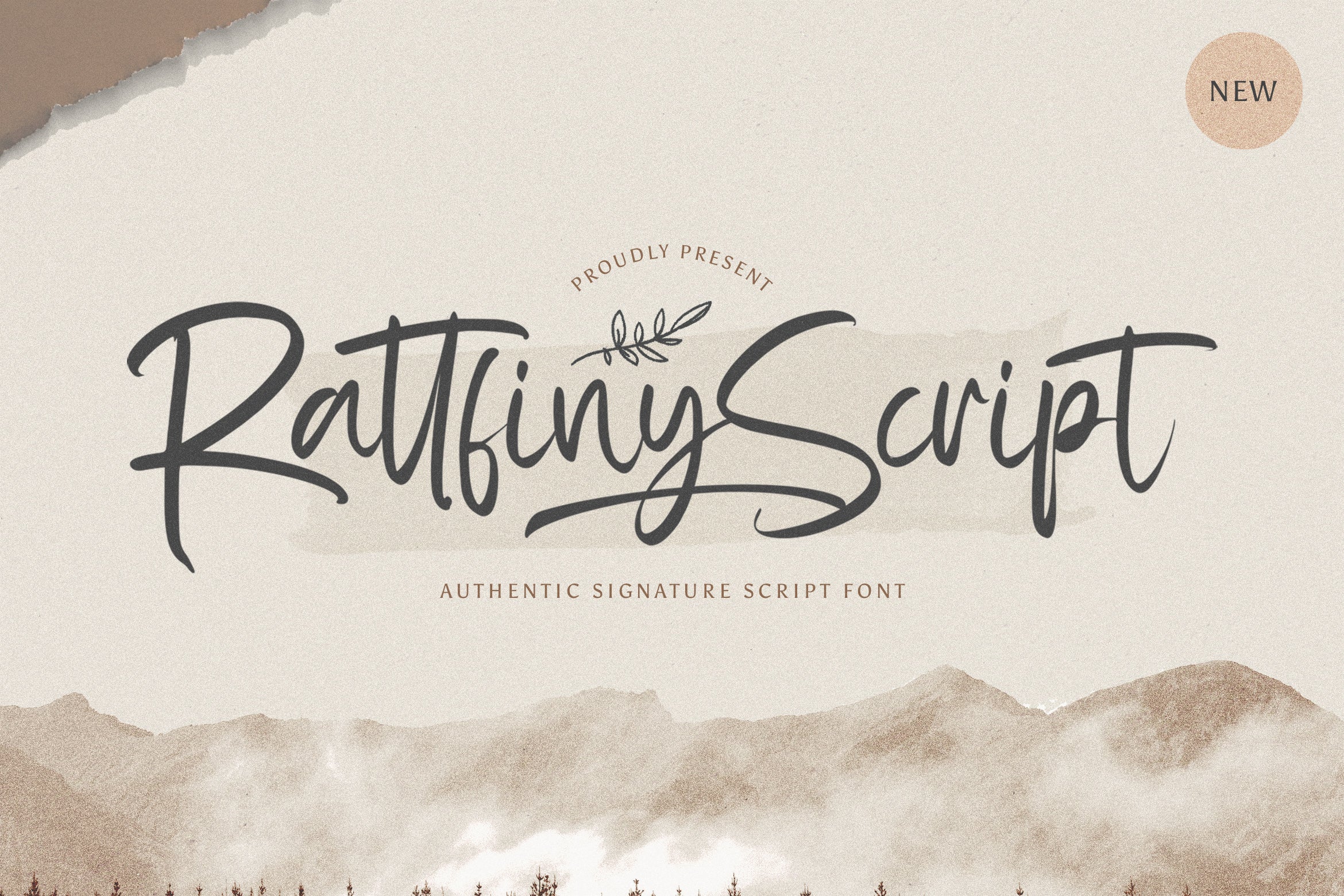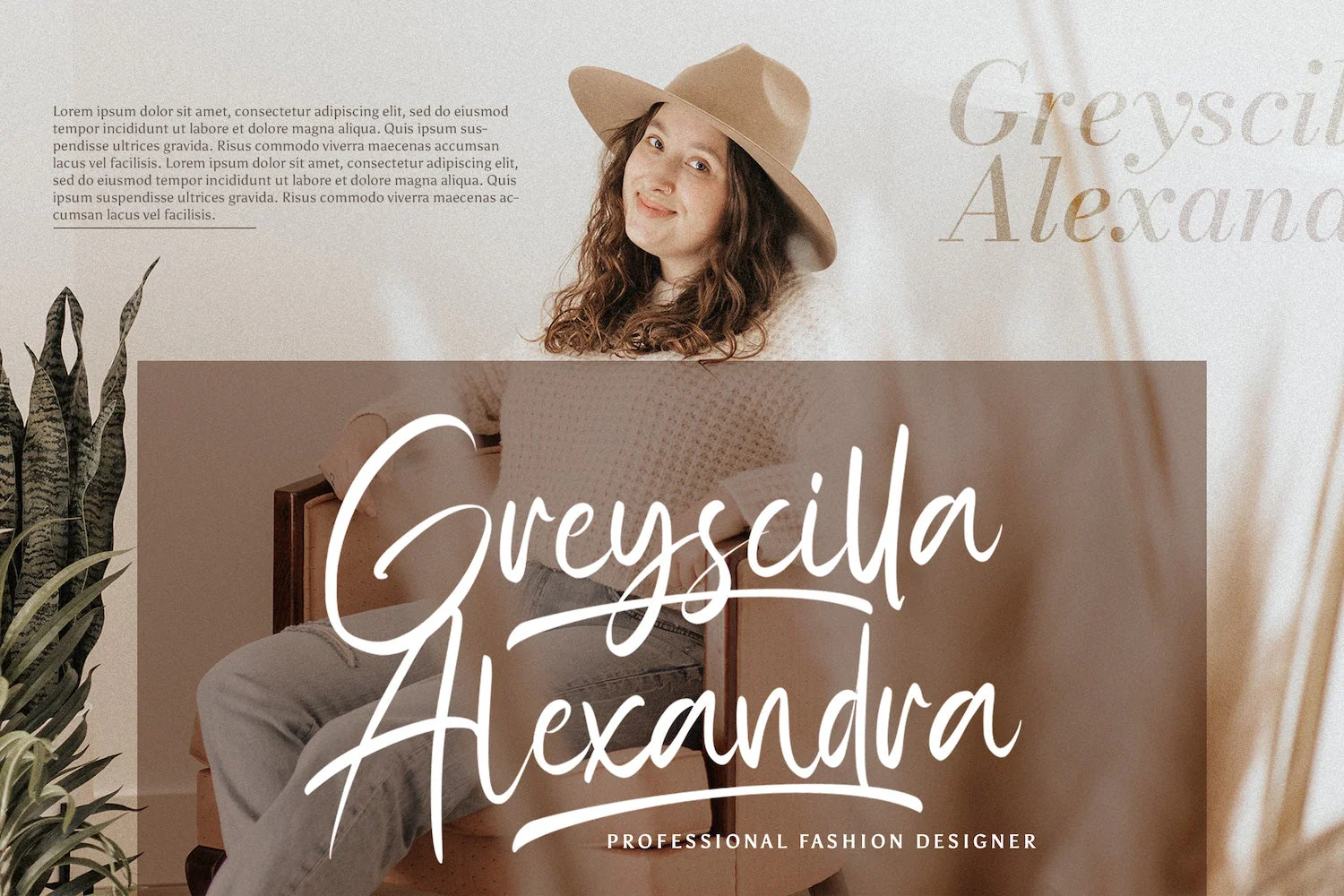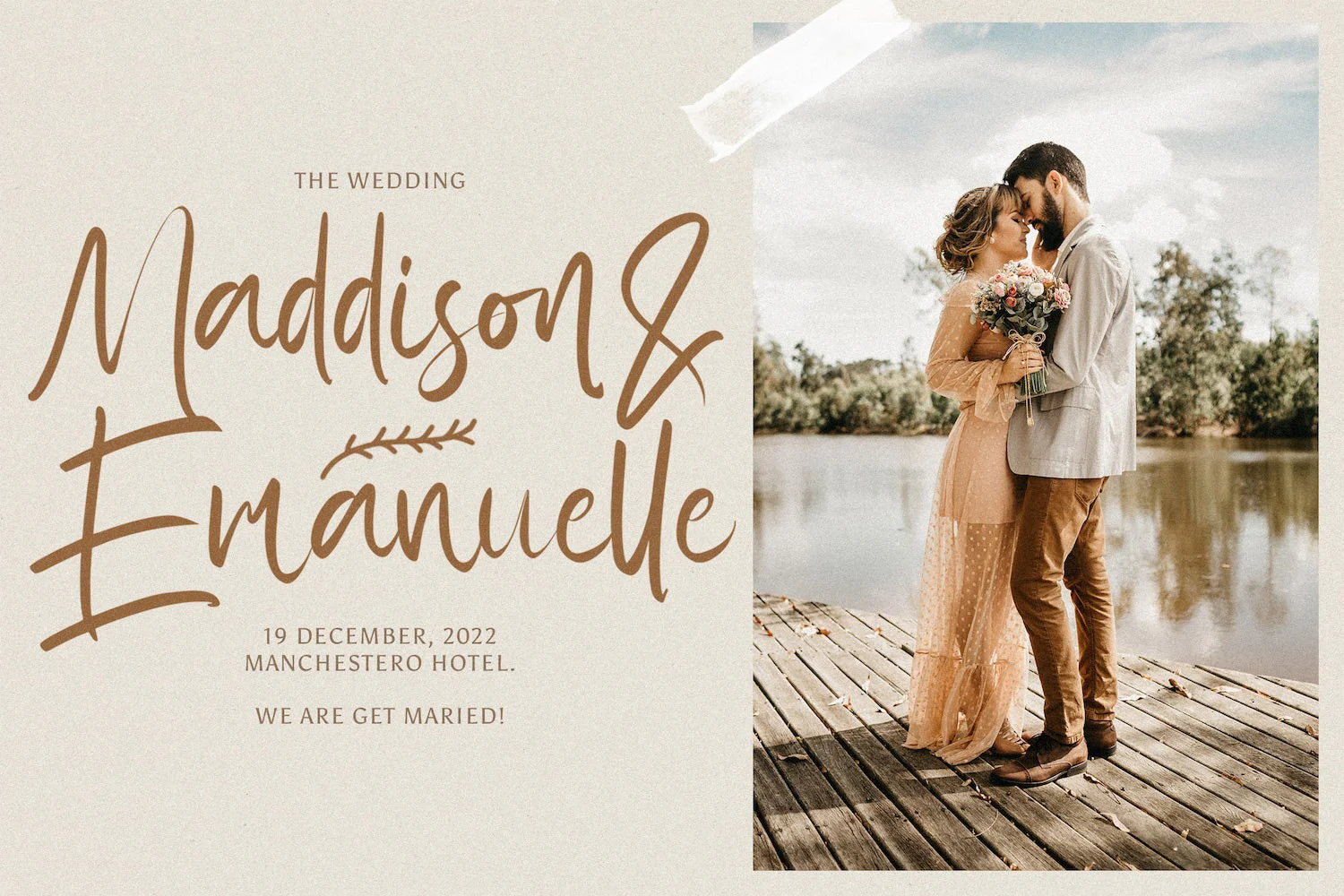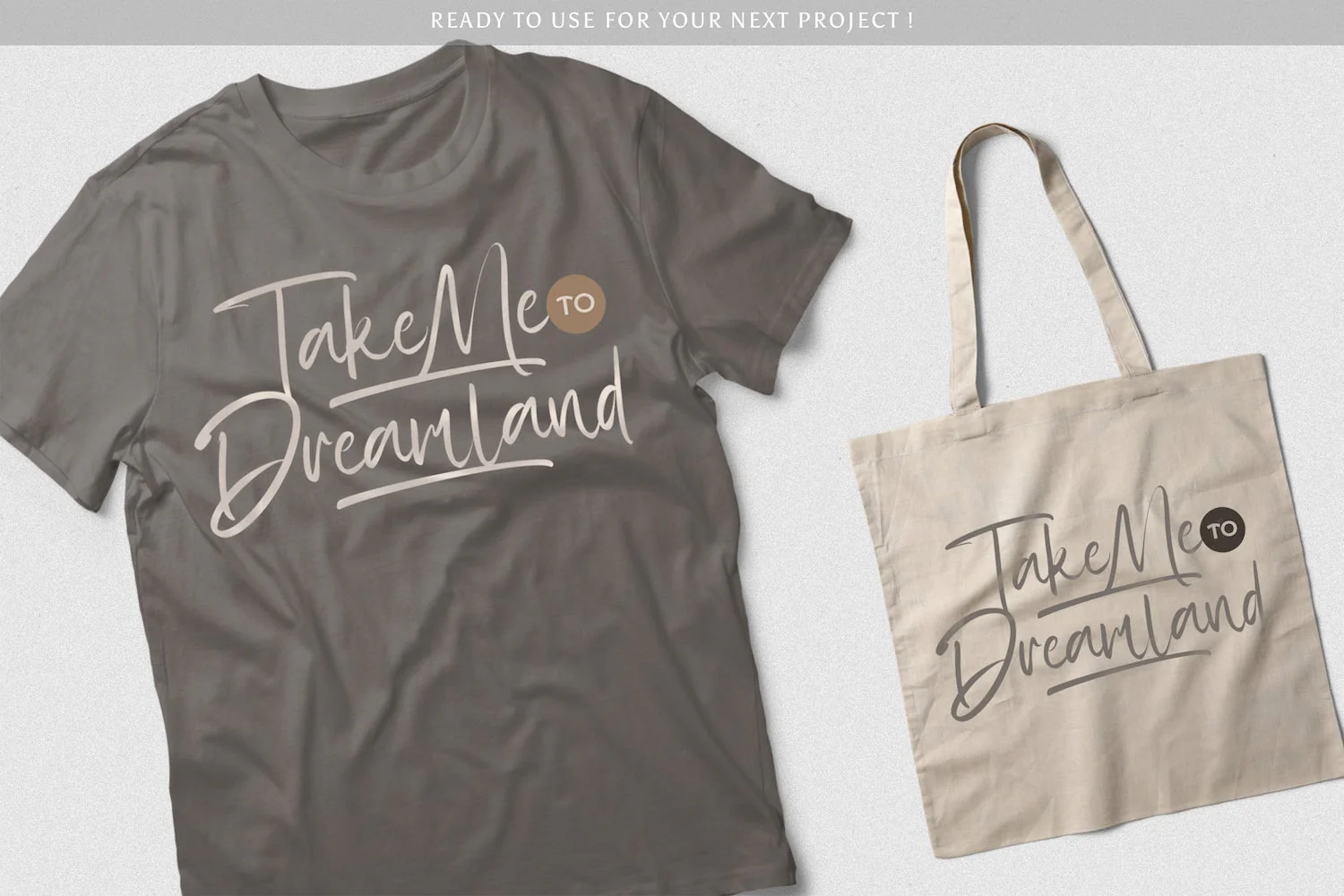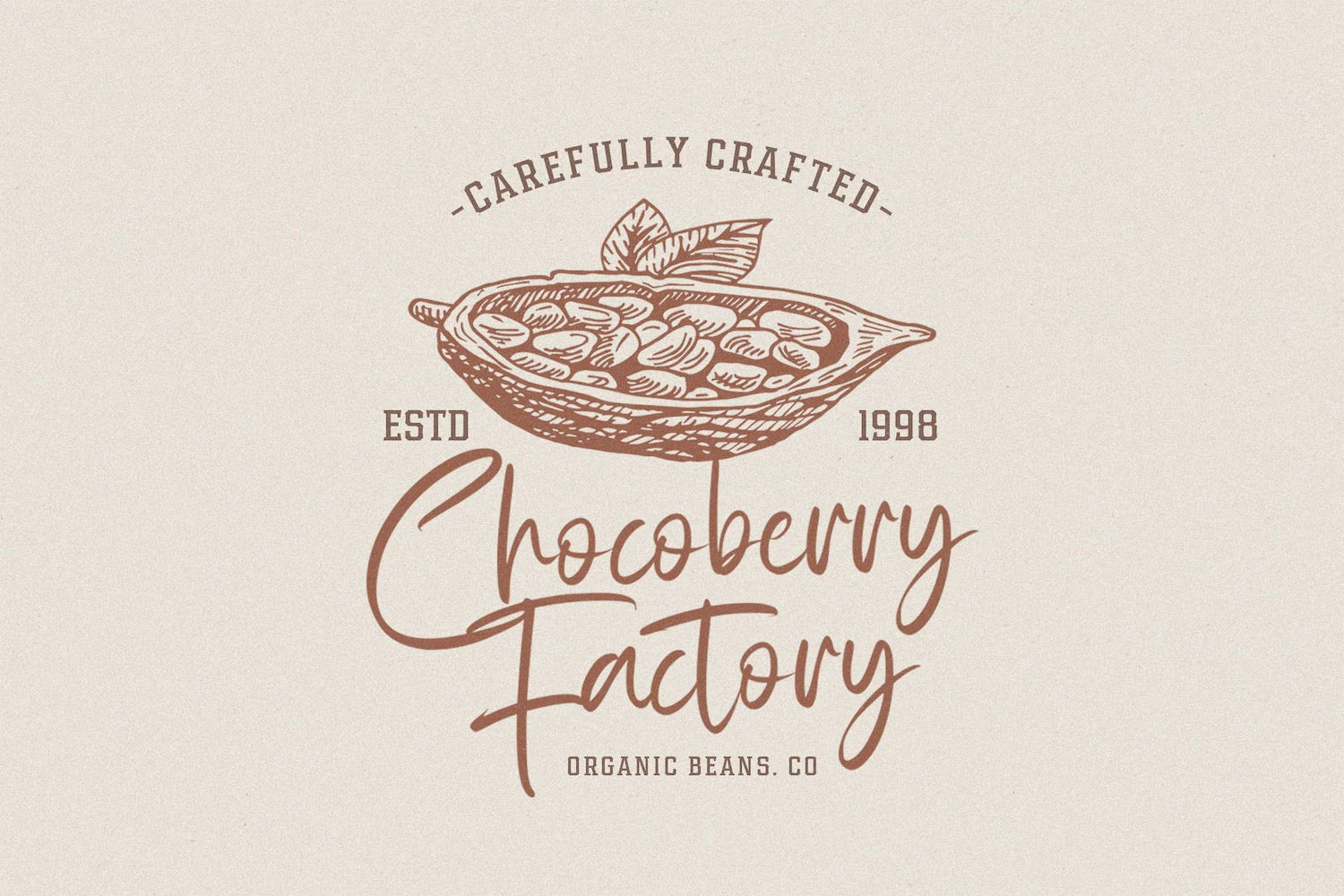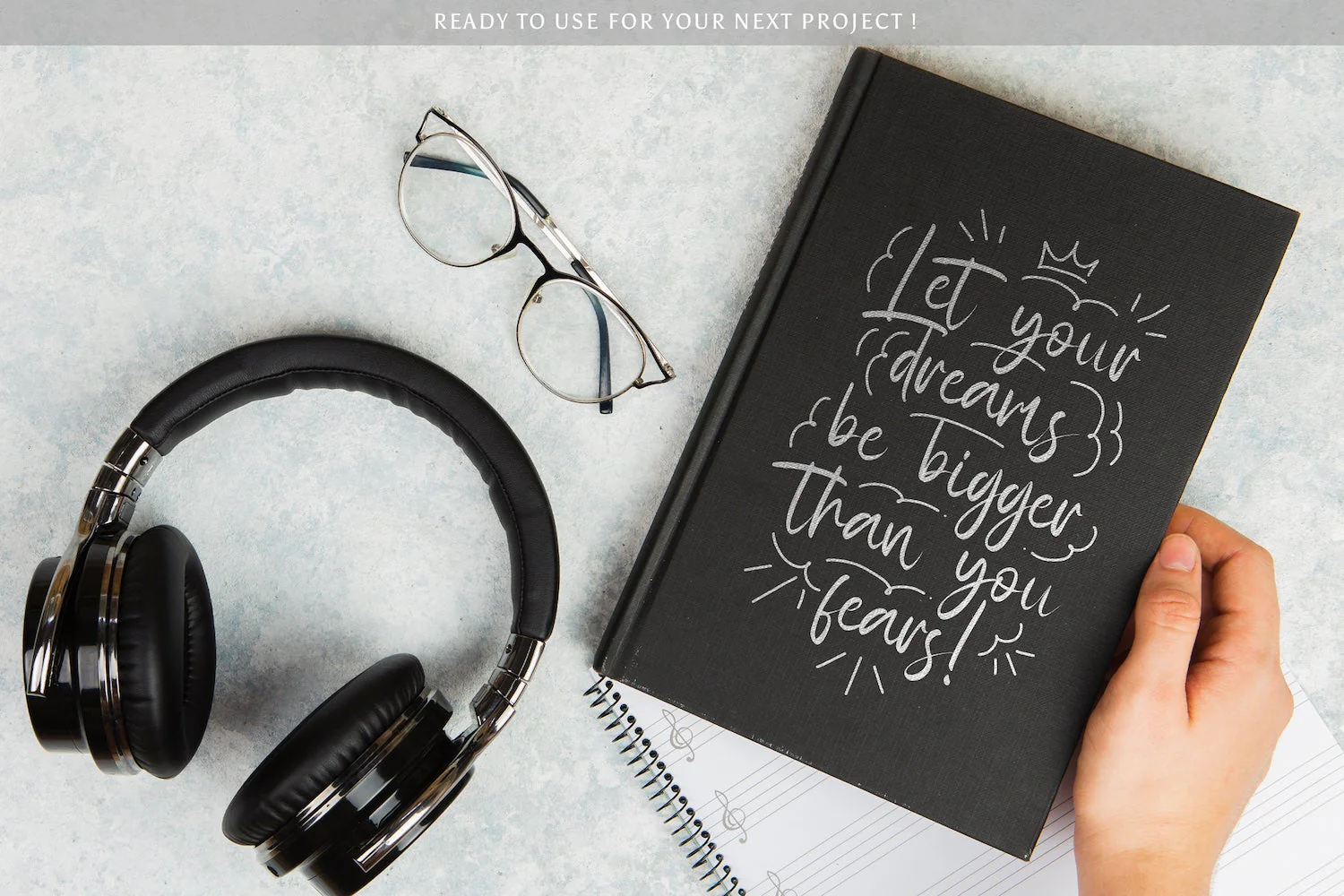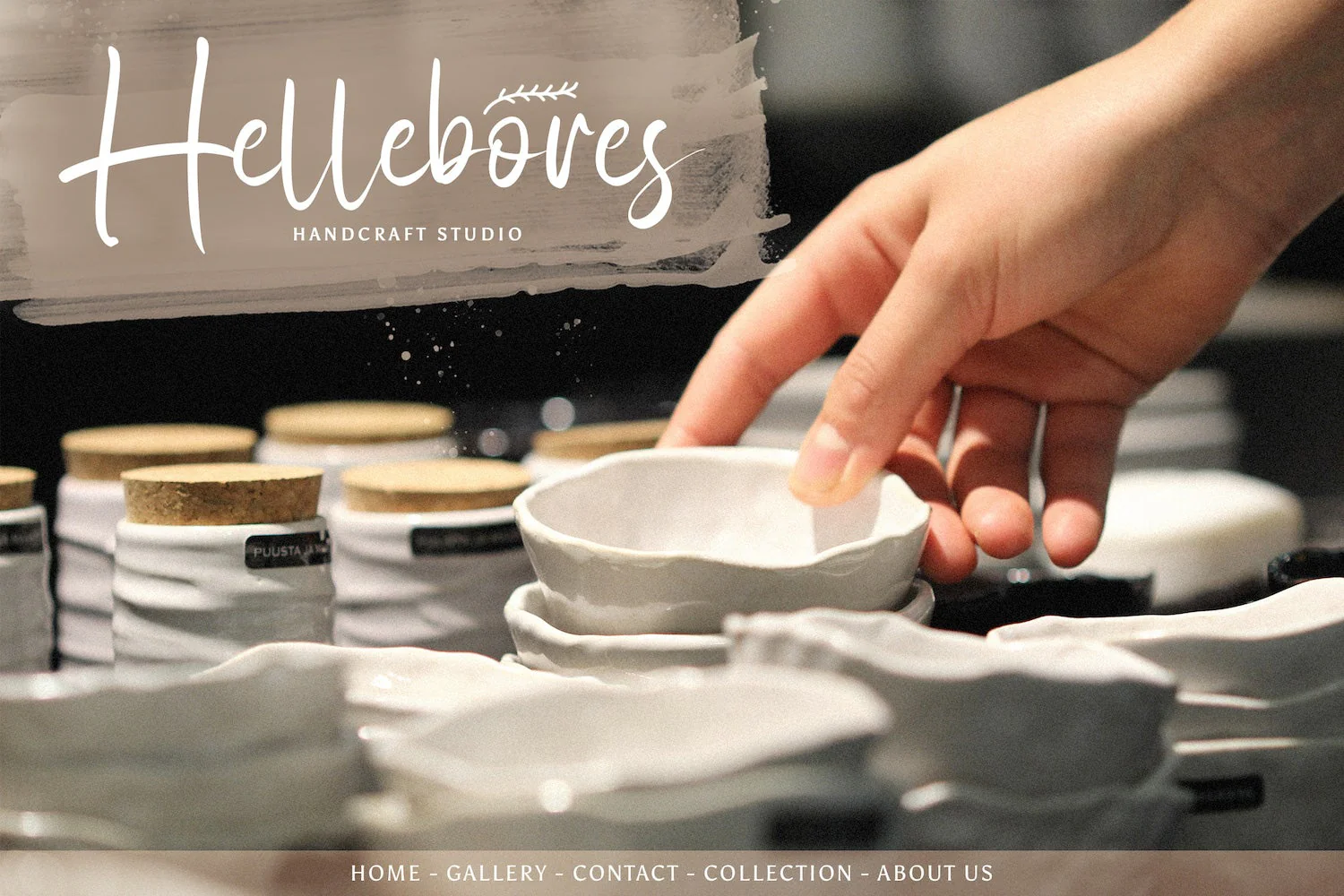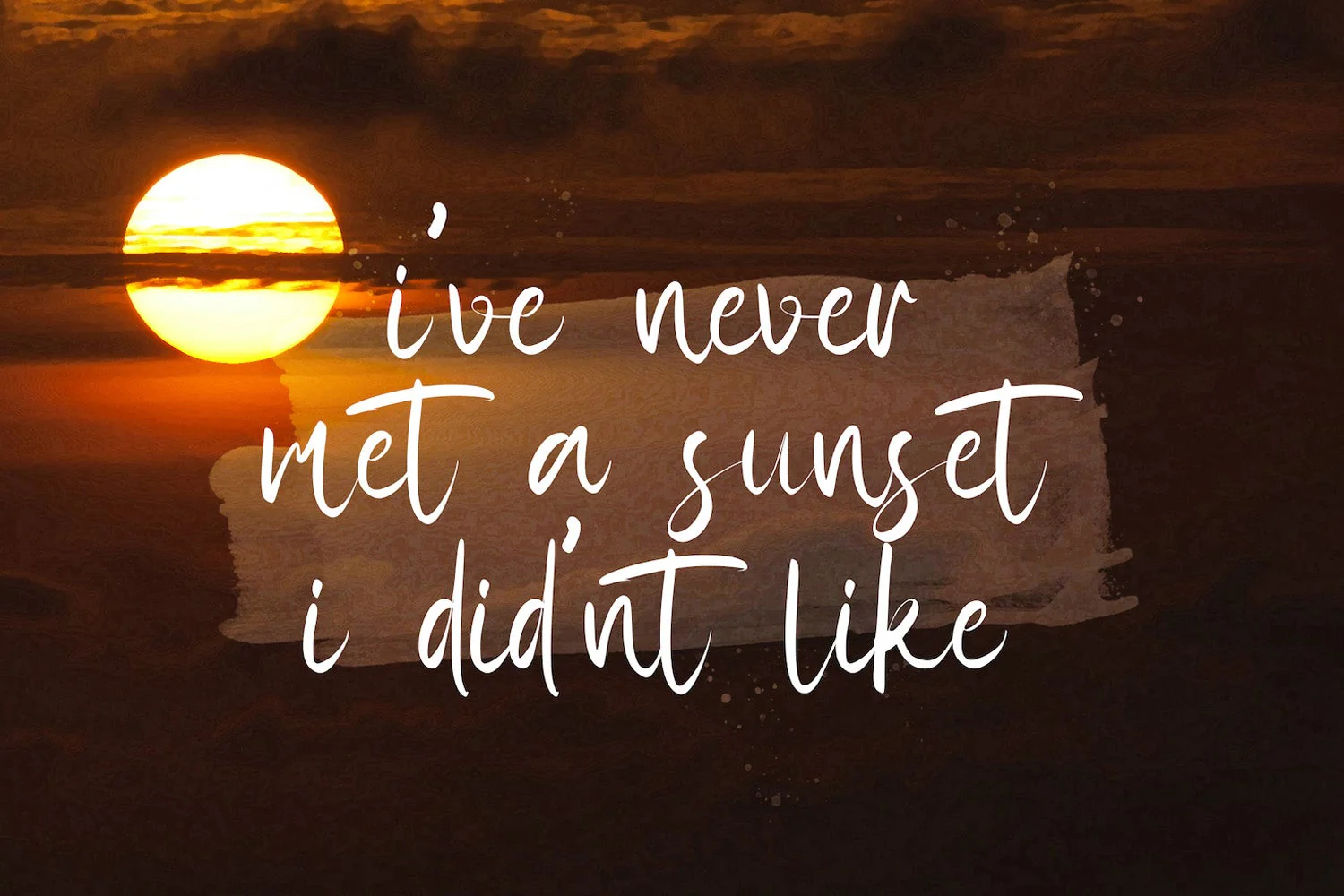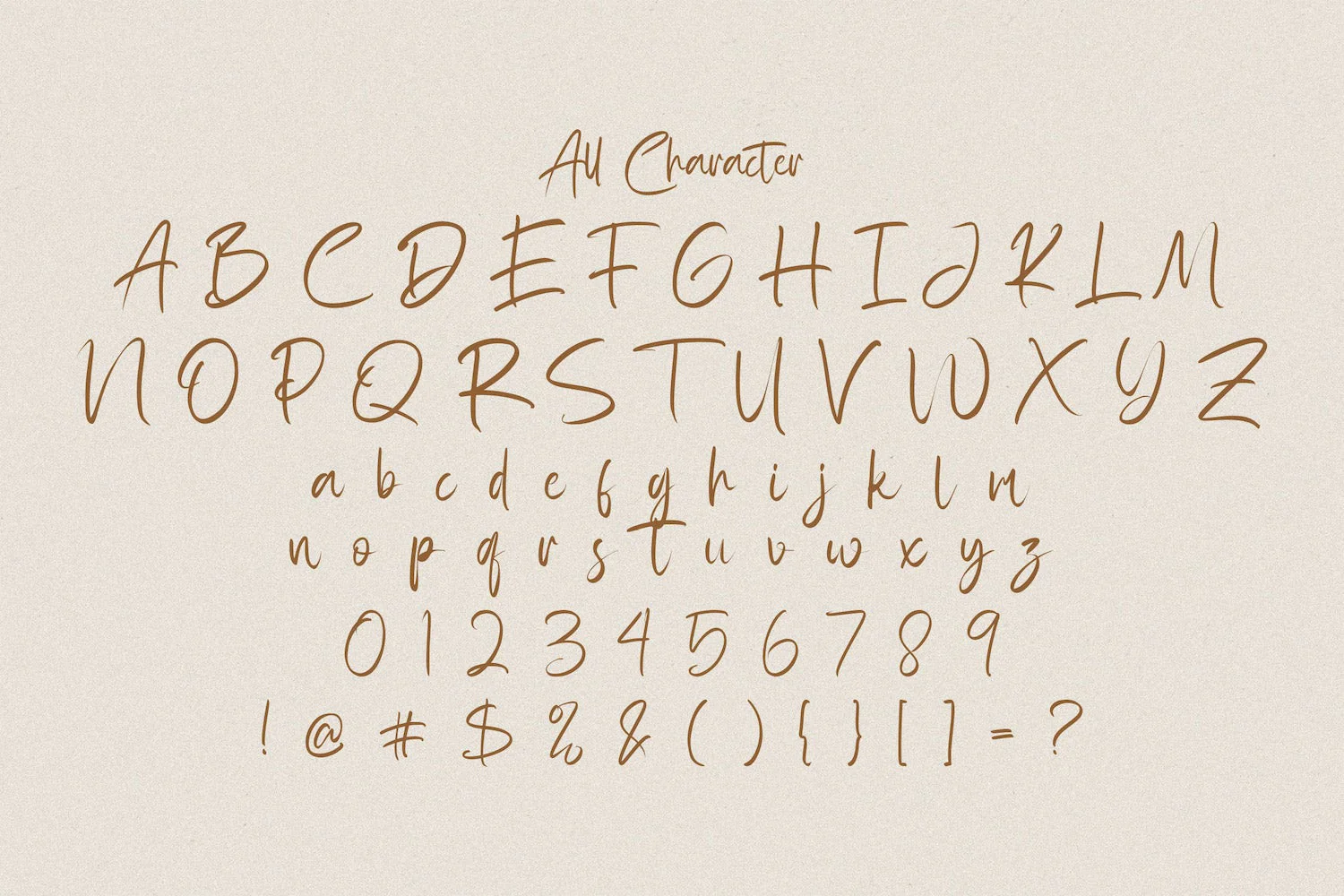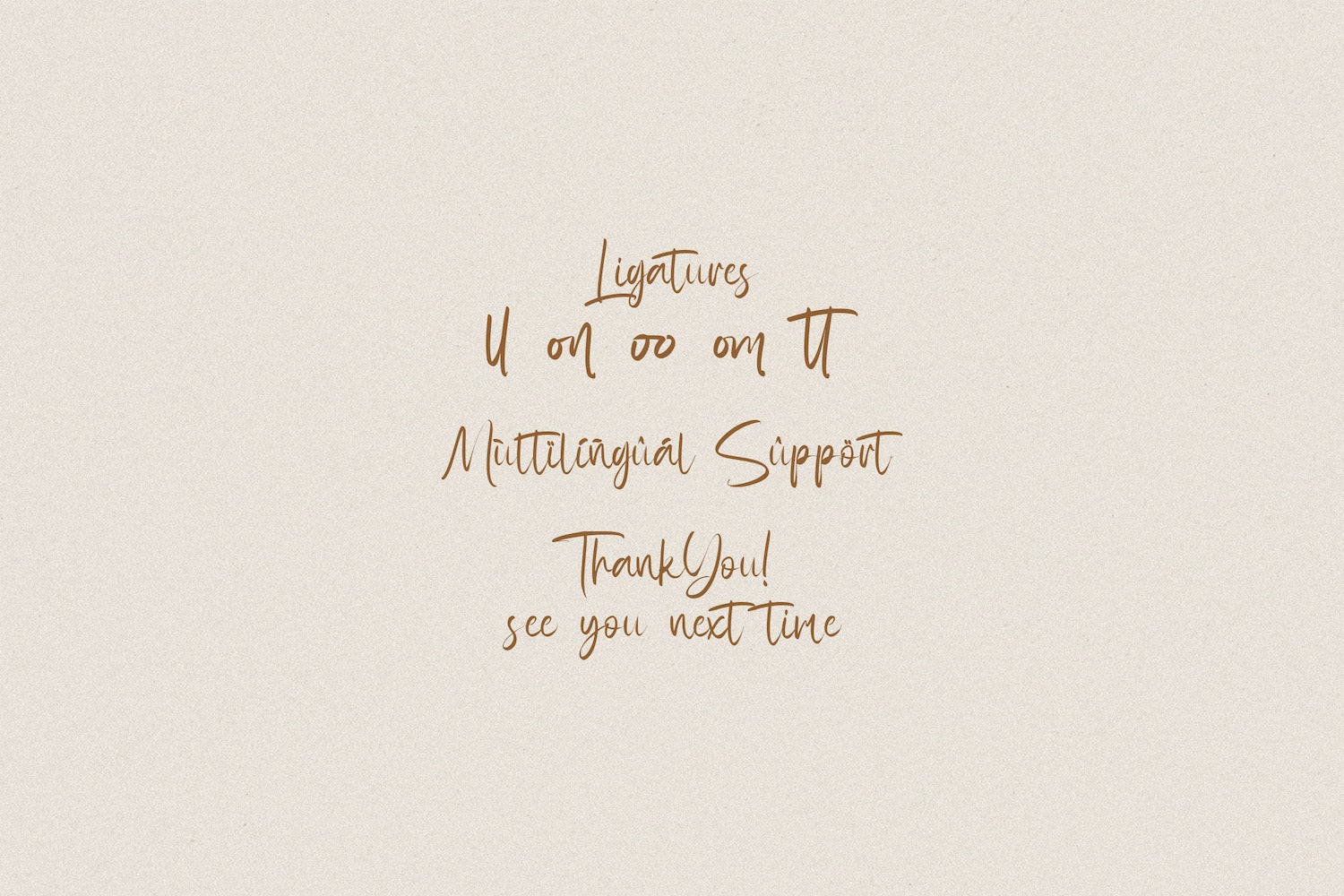
Rattfiny Script - Signature Script Font
Introducing Rattfiny Script - Signature Script Font
Rattfiny Script is a delicate, elegant and flowing handwritten font. It has beautiful and well balanced characters and as a result, it matches a wide pool of designs. Add it to your most creative ideas and notice how it makes them come alive!
Introducing Rattfiny Script - Signature Script Font
Rattfiny Script is a delicate, elegant and flowing handwritten font. It has beautiful and well balanced characters and as a result, it matches a wide pool of designs. Add it to your most creative ideas and notice how it makes them come alive!